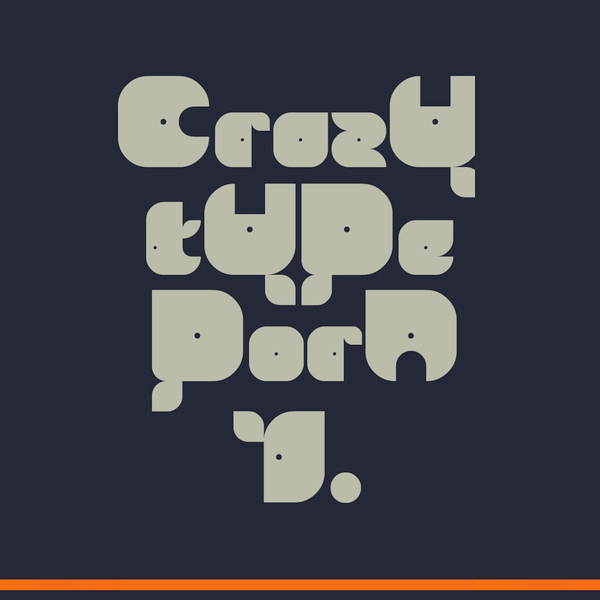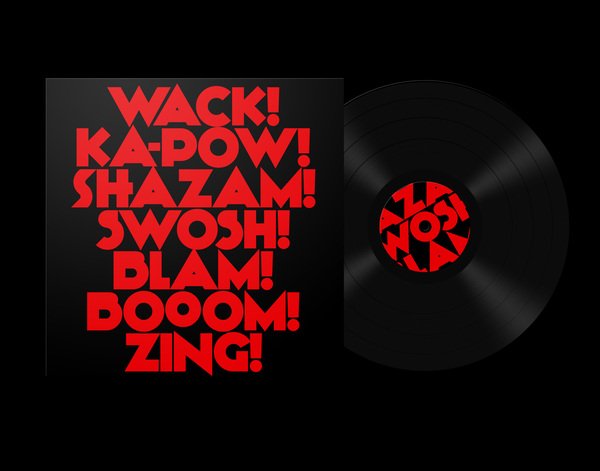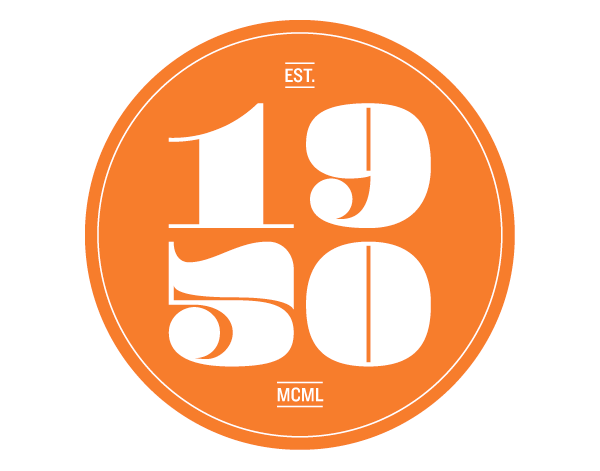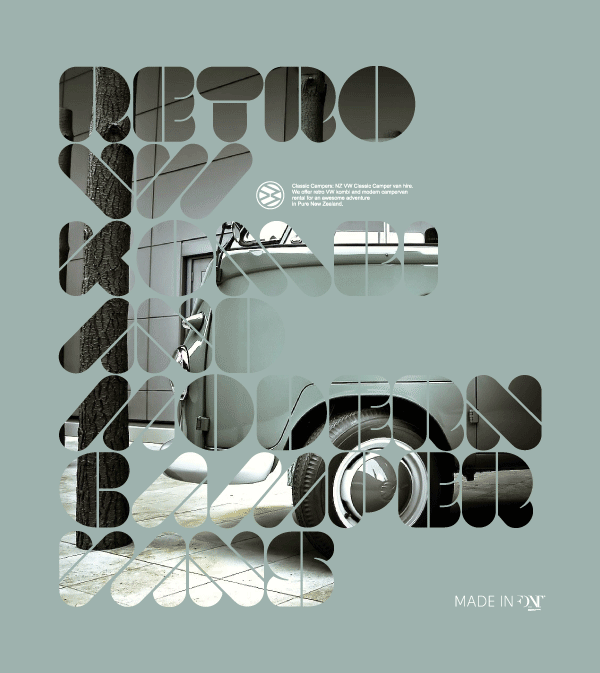
VAL Stencil
Author: Fontfabric
Description: “On The Heels Of The Successful Release Of The Val Free Font, I Received Tens Of Mails With Really Positive Feedback From Many People, Themselves Creators In The Area Of Graphic Design And Beyond.
I Saw Lots Of Great Examples Of Font Application And Use In Web, Print, Logo Etc. As A Result Of All This, I Decided To Develop A Stencil Version Of The Val Font Which Will Available For Absolutely Free Download!”
Author: KalleGraphics
Description: “This Is Kilogram A Free Font I’ve Designed Based On Nick Curtis’ Font Anagram. Have A Look, Give Me Your Feedback And Download My Version Of The Font. I’m Also Very Happy When You Send Me Samples Of How You’re Using The Fonts In Real Projects. Enjoy!”
01. Base
Author: Fabian de Lange
Description: Very modern font that would feel right at home in the world of Designers Republic’s maximum-minimalist.
Pampadour Numerals
Author: Andy Mangold
Description: “Pompadour Is A Chunky, Display Numeral Set Inspired By The 1950s Rockabilly Hairdo. The Numbers, Which Each Fit Perfectly Inside Of A Square, Are Best Used A Large Sizes.”